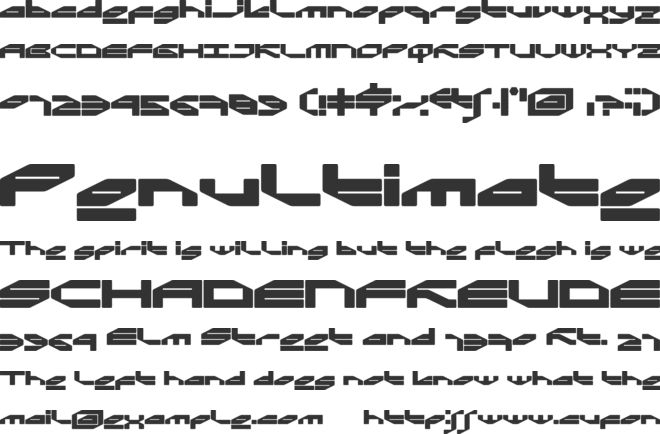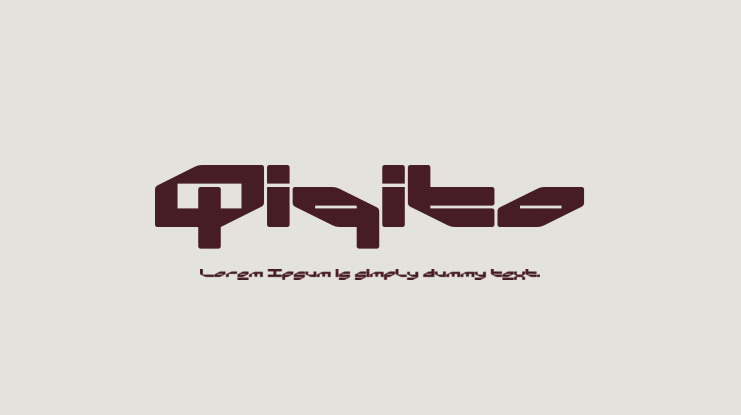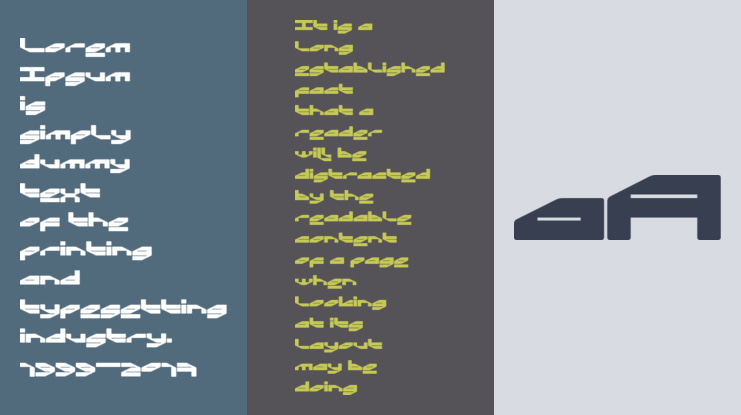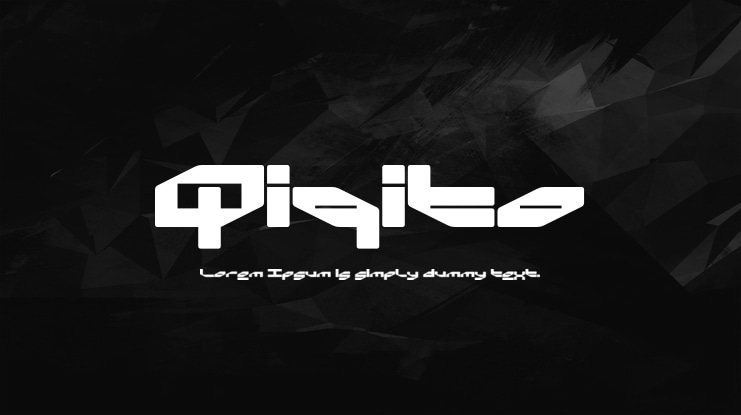
Qiqito Font
This is QIQITO. QIQITO is a futuristic inspired display typeface dedicated to Quique Peydro. QIQITO covers basic latin and greek glyphs. QIQITO includes dozens of alternate glyphs and ligatures. Activate them by adding _, *, _*/*_ or ** after certain glyphs.